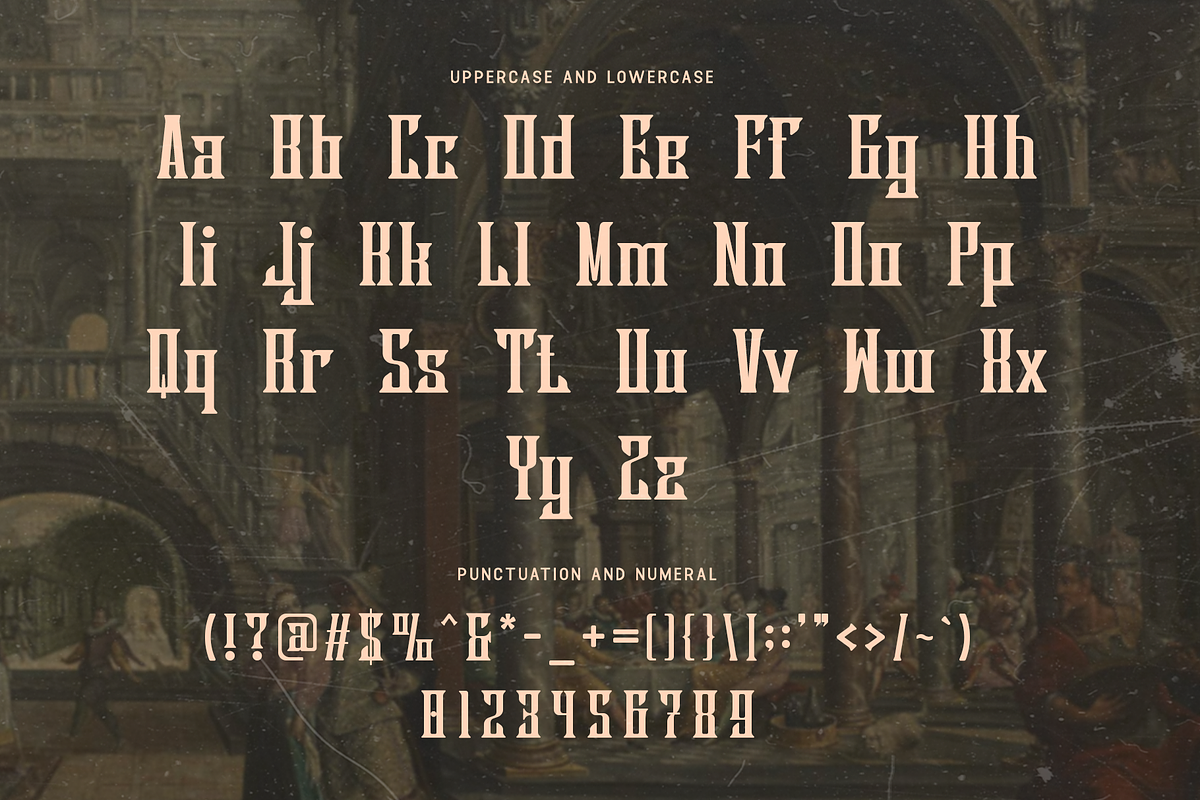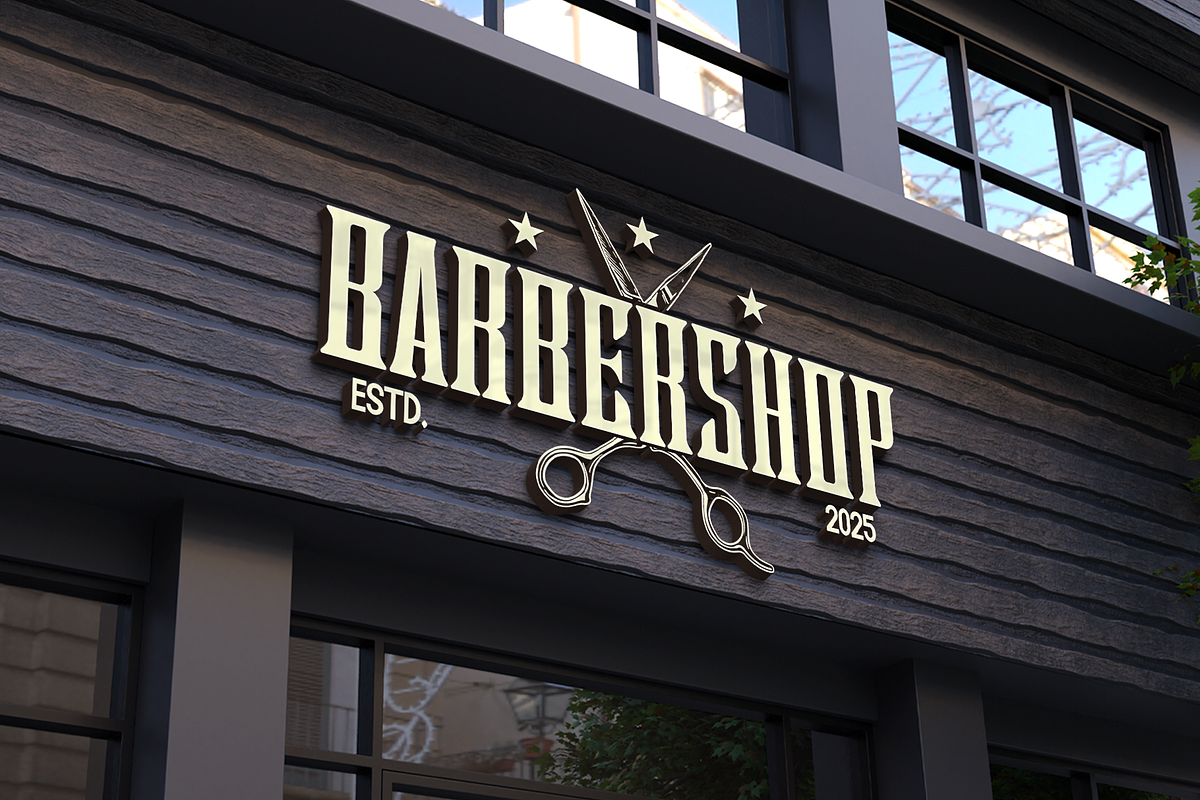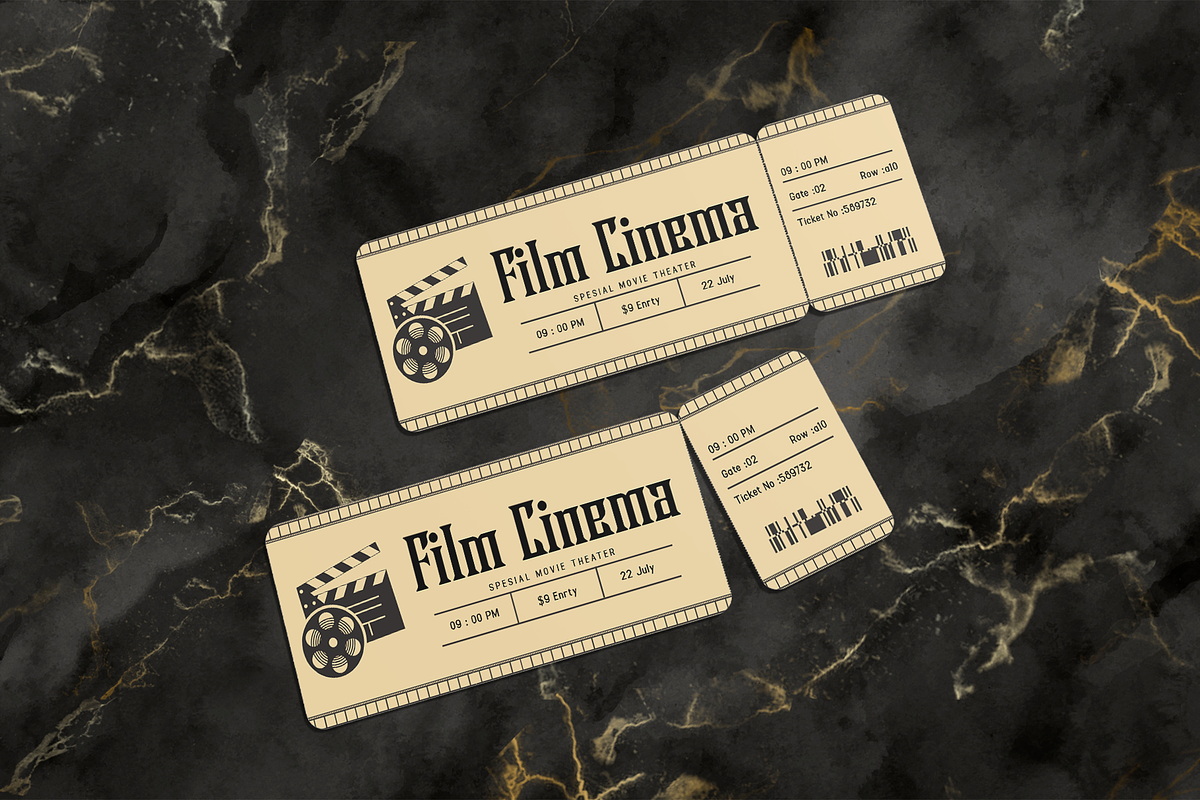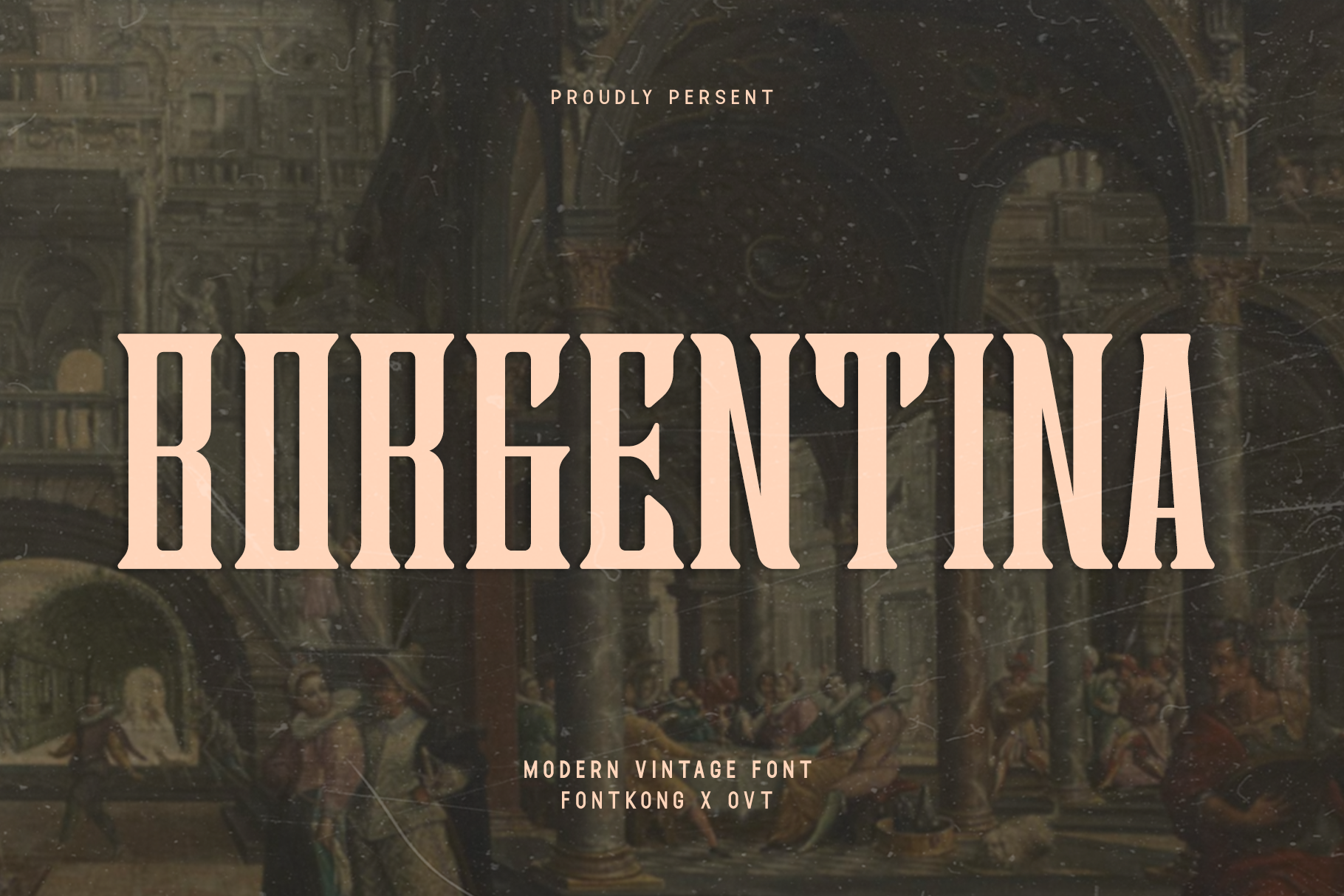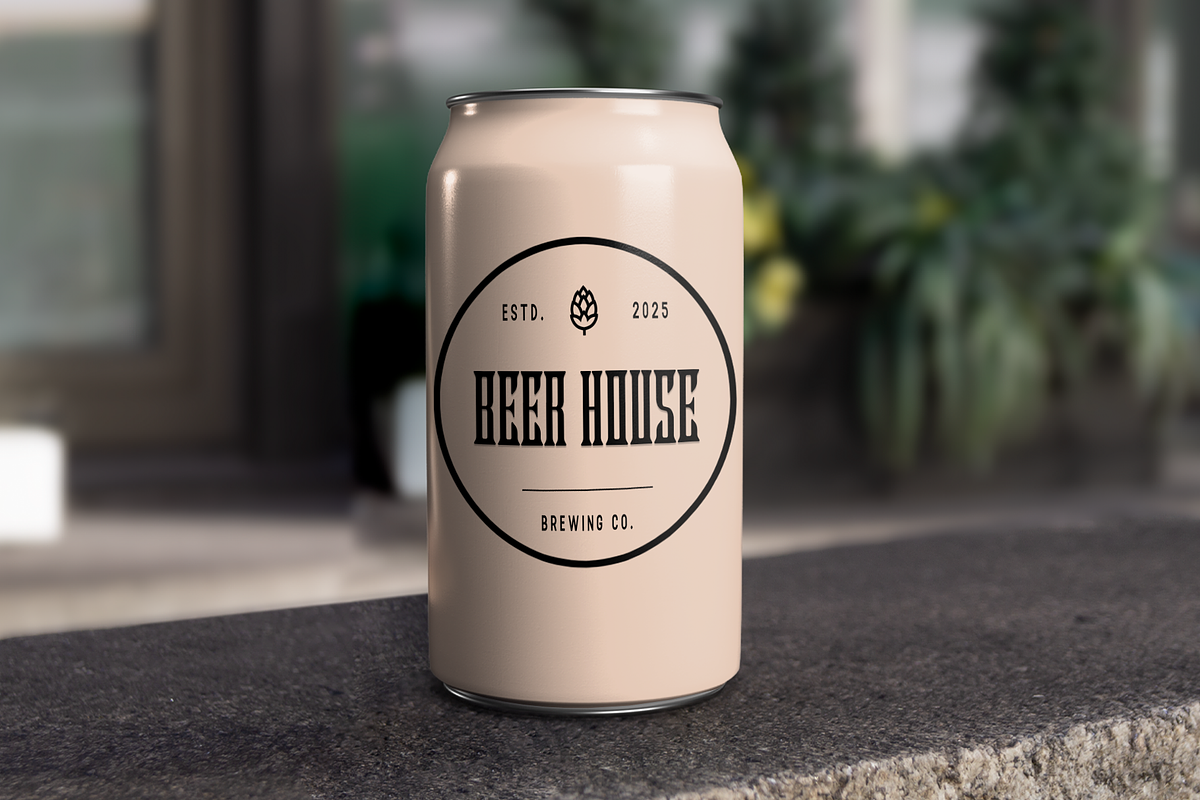
Borgentina - Modern Vintage Font
Embark on a journey through time with "Borgentina," a modern vintage font that beautifully blends nostalgia with contemporary design. With its timeless charm and modern sensibility, Borgentina adds a touch of retro elegance to any project.
Crafted with meticulous attention to detail, Borgentina captures the essence of vintage typography while infusing it with a fresh perspective. Whether you're creating branding materials, posters, or editorial layouts, this font brings a sense of history and character to your designs.
Featuring a versatile character set, Borgentina offers flexibility and adaptability for a variety of creative endeavors. Its clean lines and classic forms ensure readability and visual appeal across different applications, while its vintage-inspired details add a touch of authenticity and charm.